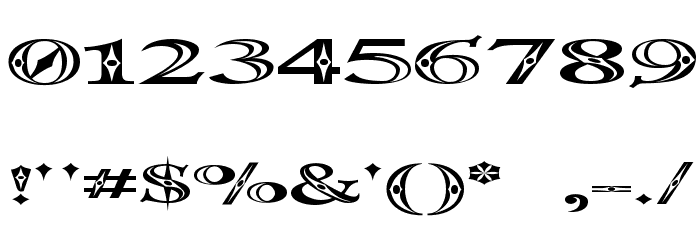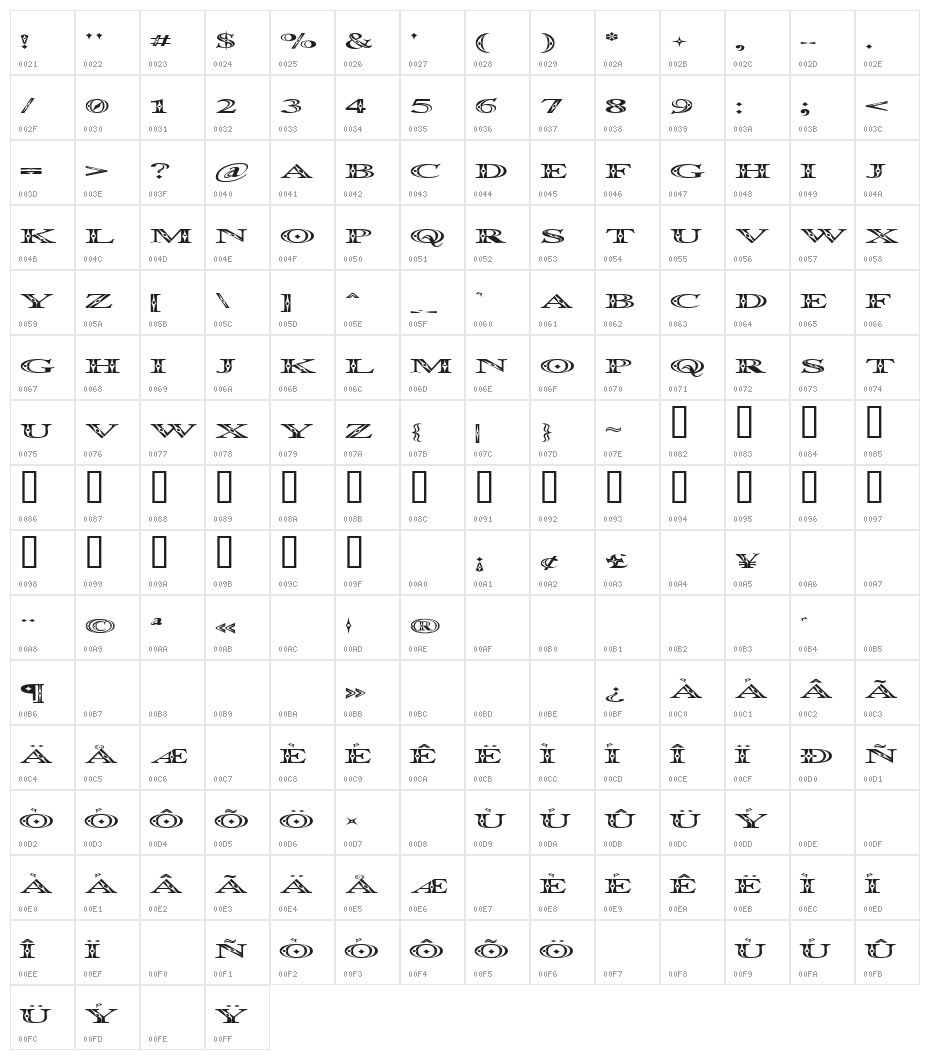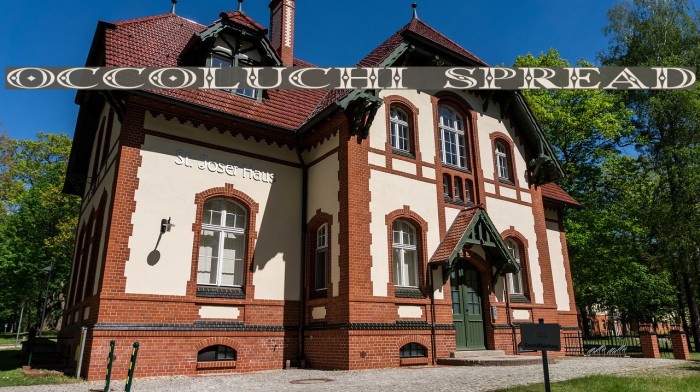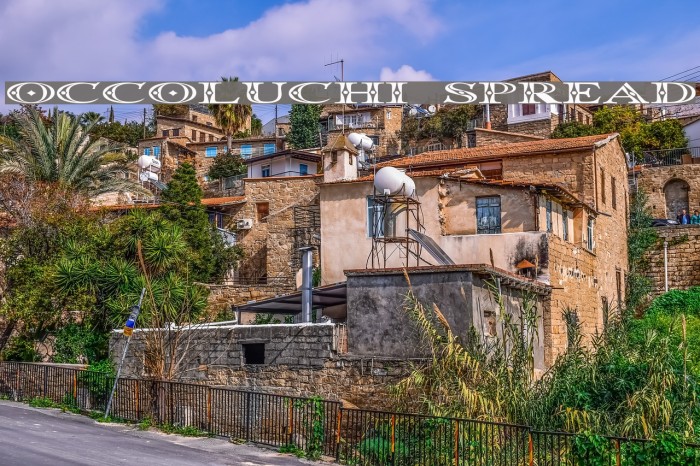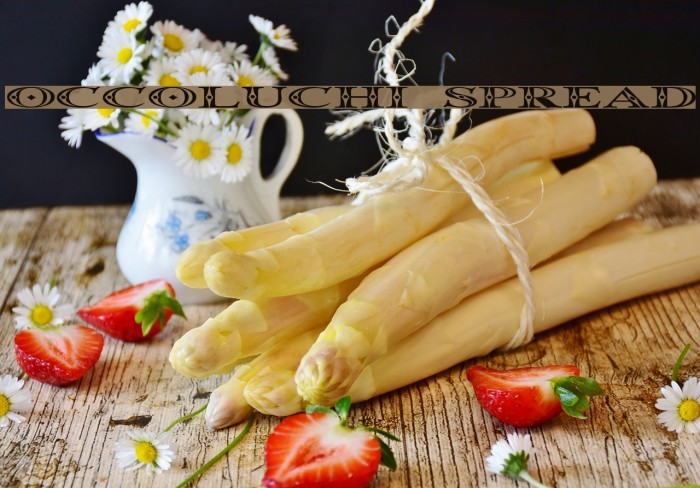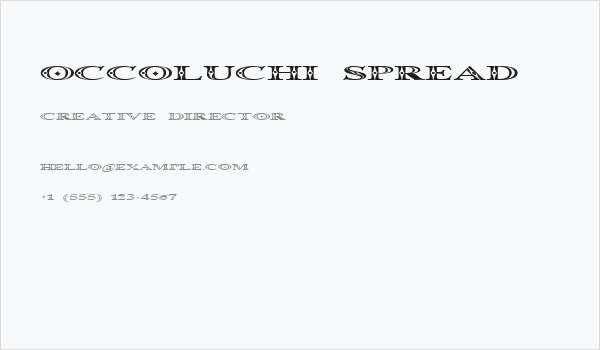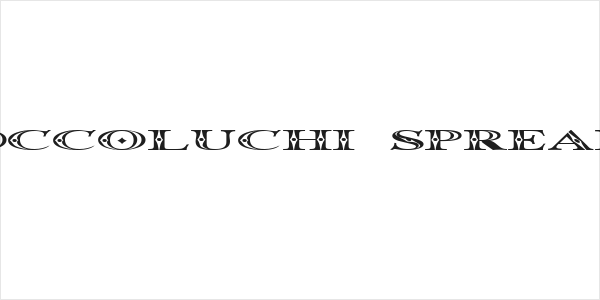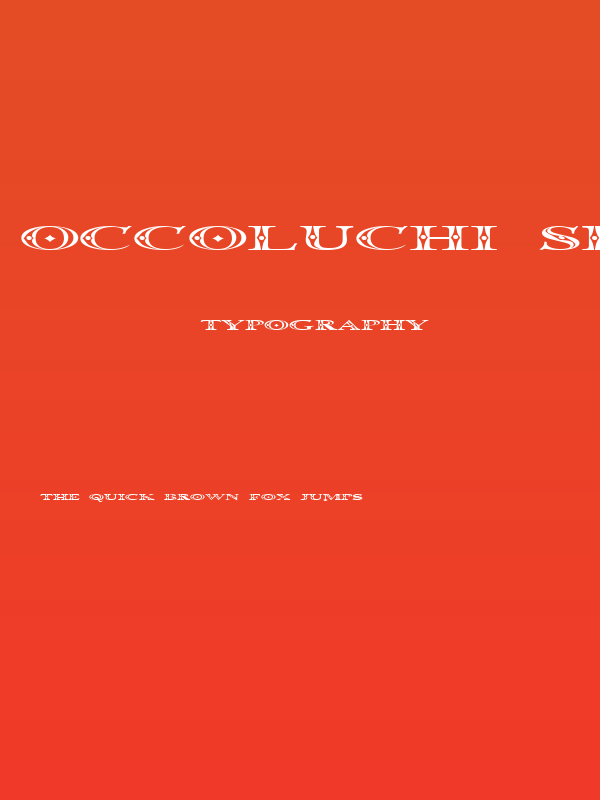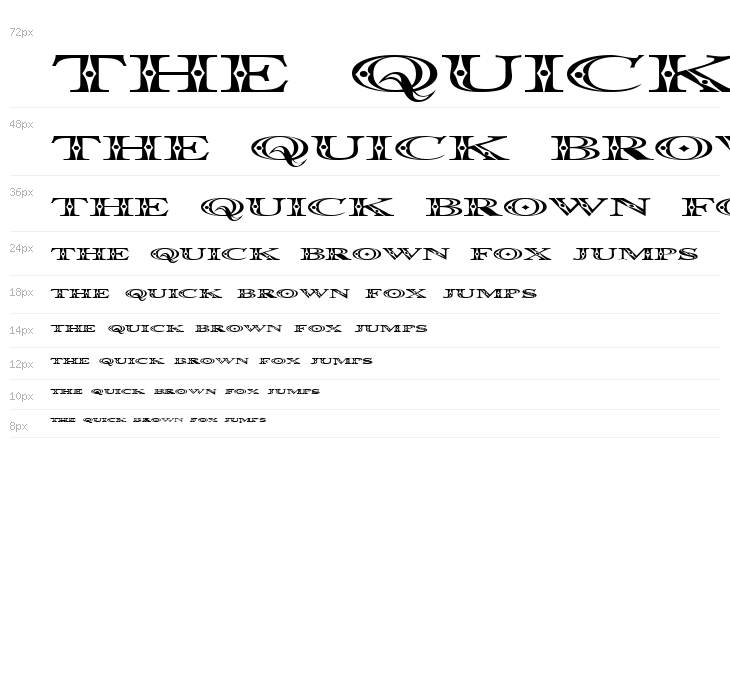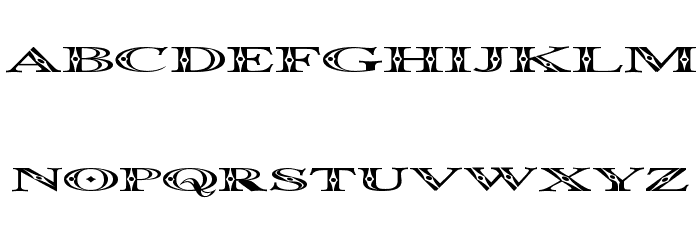
Occoluchi Spread Font
Occoluchi Spread Description
This font features a decorative and intricate design, characterized by ornate patterns within each character. The uppercase letters are bold and striking, with elaborate embellishments that give them a unique and artistic flair. The lowercase letters maintain the same decorative style, ensuring consistency throughout the typeface. The numerals are equally adorned, making them stand out with their distinctive appearance. Special characters are designed with the same attention to detail, adding to the overall cohesive look. This font is ideal for projects that require a touch of elegance and creativity, such as invitations, posters, or branding materials.